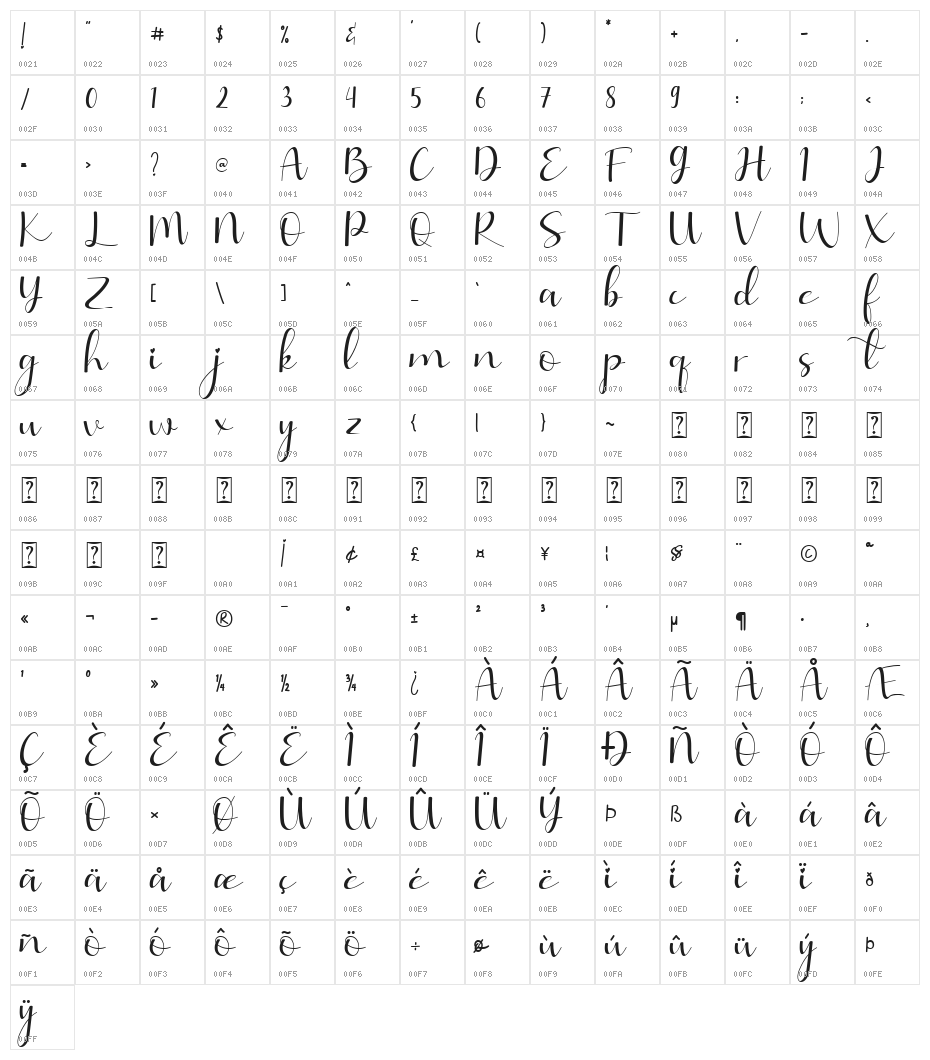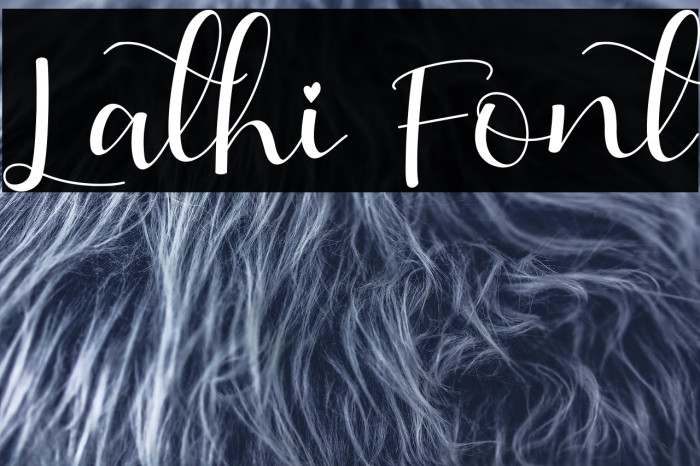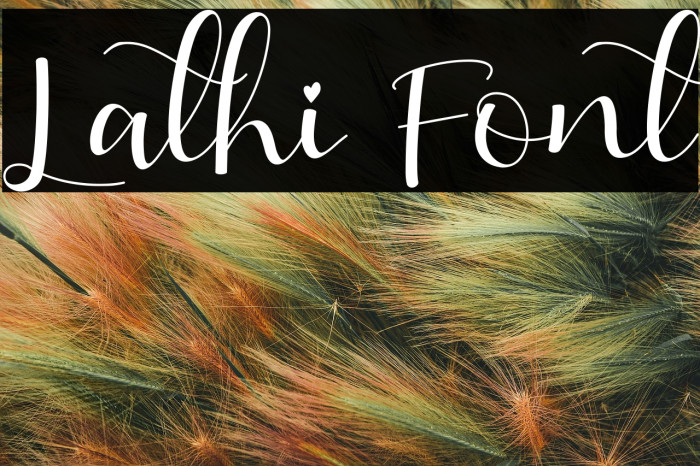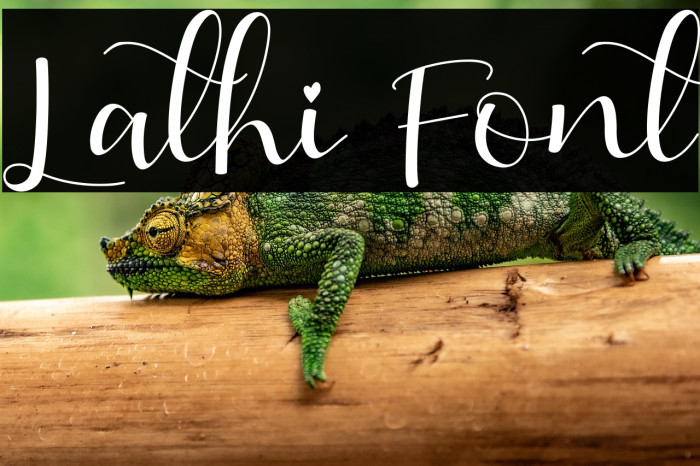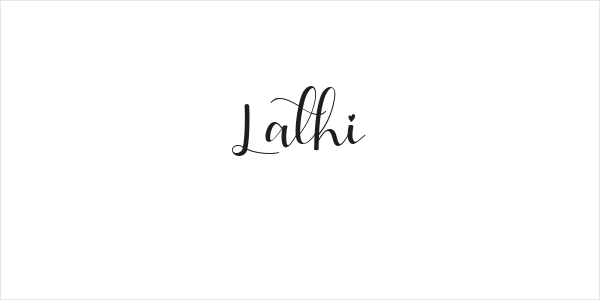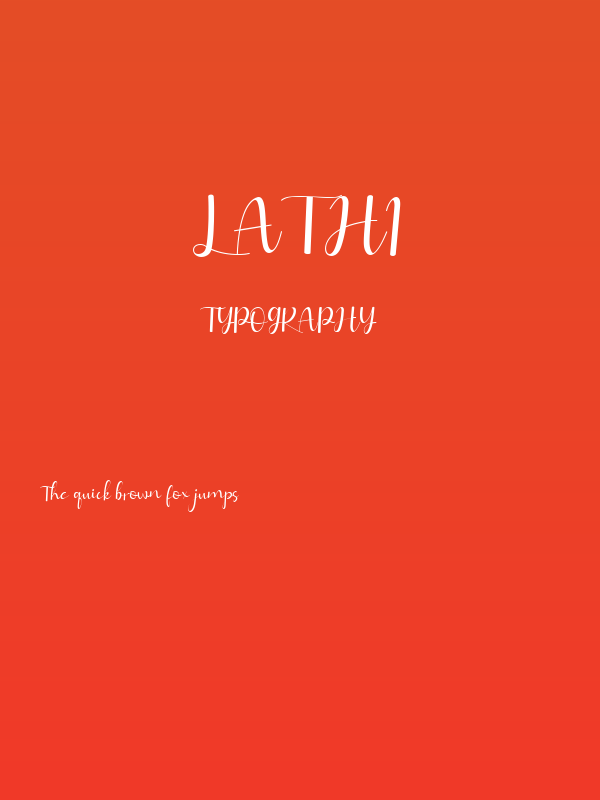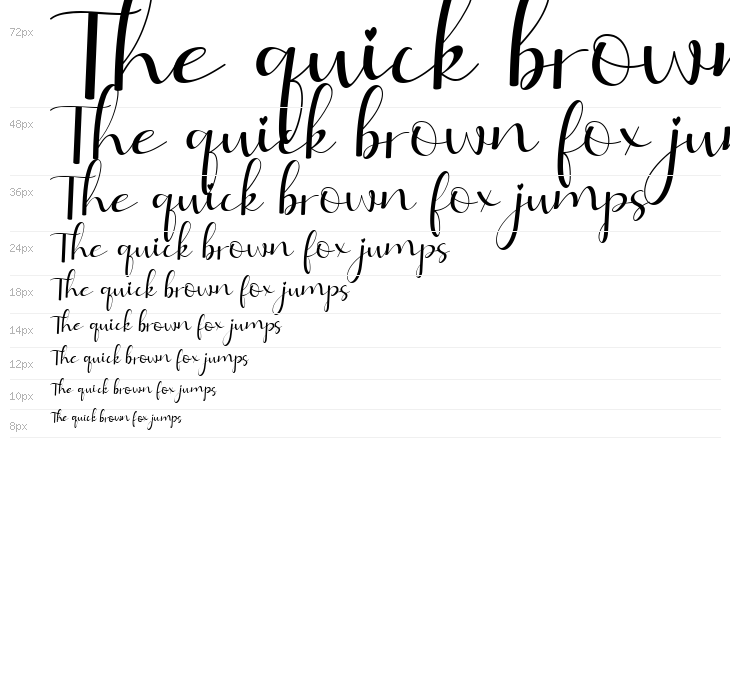
Lathi Font
Lathi Description
This font features an elegant and flowing script style, characterized by its smooth, cursive strokes and graceful loops. The uppercase letters are tall and slender, with a slight slant that adds a dynamic feel. Lowercase letters are more rounded, maintaining a consistent flow that enhances readability. The numerals are distinct and stylish, complementing the overall aesthetic. Special characters are thoughtfully designed, integrating seamlessly with the alphabet. This font exudes a sense of sophistication and charm, making it suitable for a variety of creative applications.
| Overall Style | Elegant, Sophisticated |
| Use Case | Logos, Invitations, Decorative text |
| Proposed Projects | Ideal for wedding invitations, elegant branding, greeting cards, and upscale packaging. |